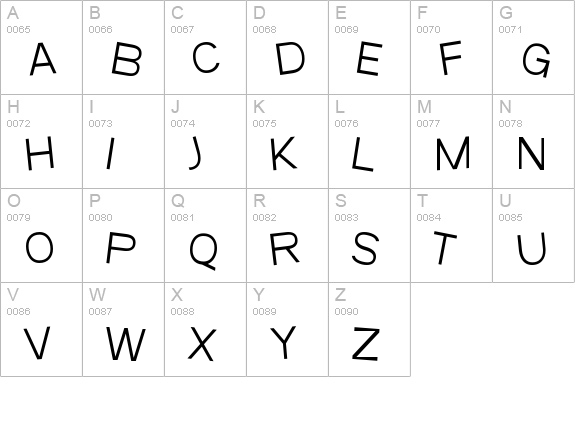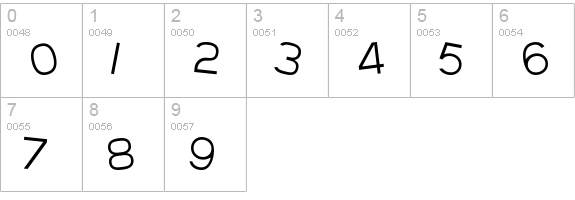
SF Beaverton Light Font Details
SF Beaverton Light is a refined, elegant variant in the SF typeface family \xE2\x80\x94 well suited to elegant body text, refined sub-headings, and luxury branding.
SF Beaverton Light is a strikingly elegant typeface that effortlessly combines modern simplicity with a touch of sophistication. This font is the perfect choice for those seeking a clean and contemporary look for their design projects. With its slender and graceful letterforms, SF Beaverton Light exudes a sense of refined elegance that is sure to captivate any audience. Its carefully crafted curves and precise letter spacing create a harmonious balance, making it a versatile font that is suitable for a wide range of design applications. Whether you are designing a logo, creating a website, or working on a print project, SF Beaverton Light will bring a sense of professionalism and style to your work. Its clean lines and subtle details make it highly legible, even at smaller sizes, ensuring that your message is conveyed with clarity and impact. The best part? SF Beaverton Light is available completely free! That's right, you can download this beautiful font at FontsMarket.com without spending a dime. This means that you can enhance your designs with a high-quality typeface without breaking the bank. So why wait? Download SF Beaverton Light today and elevate your design projects to new heights. With this font, you'll be able to create stunning visuals that leave a lasting impression, all while enjoying the freedom of a free and easily accessible resource.